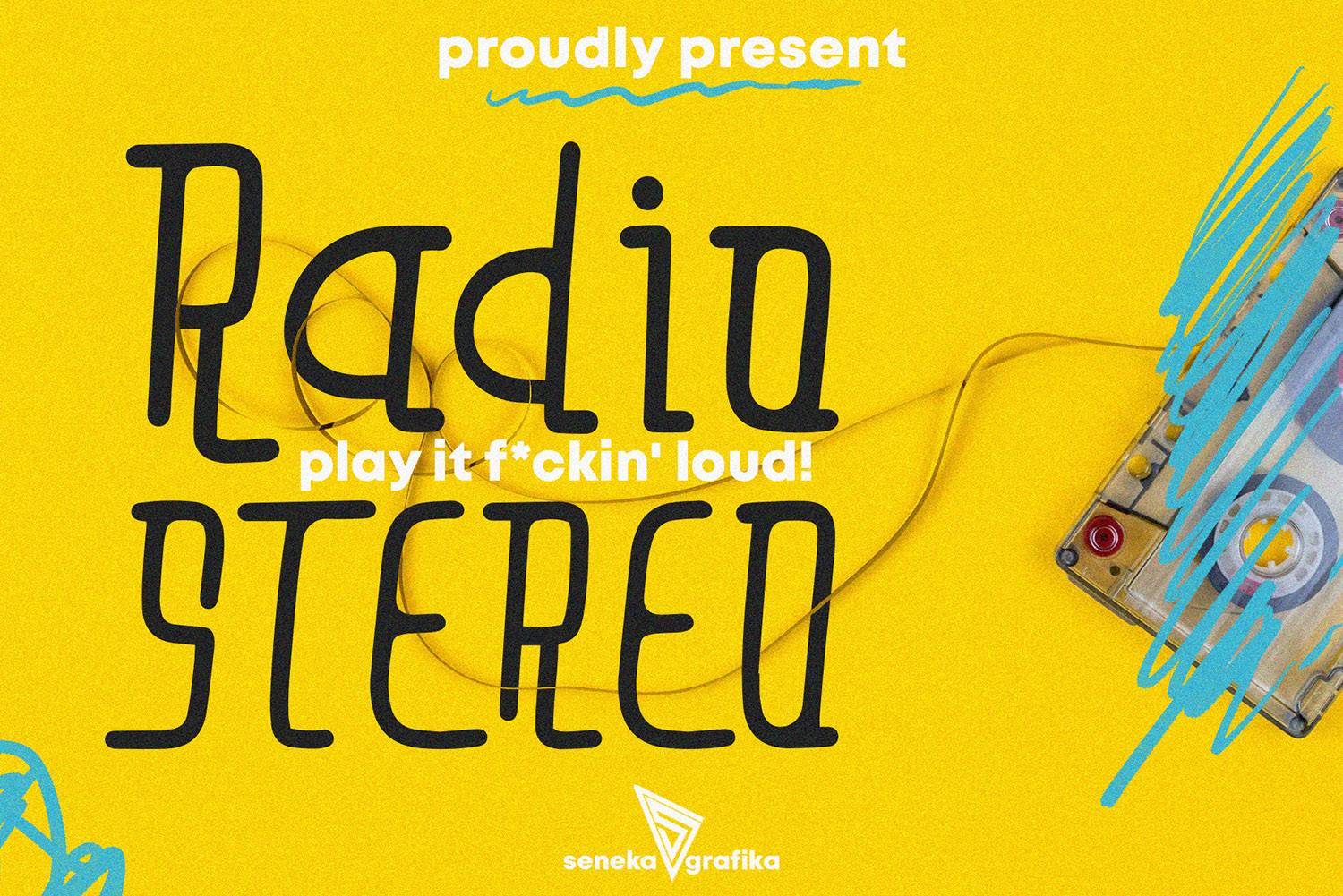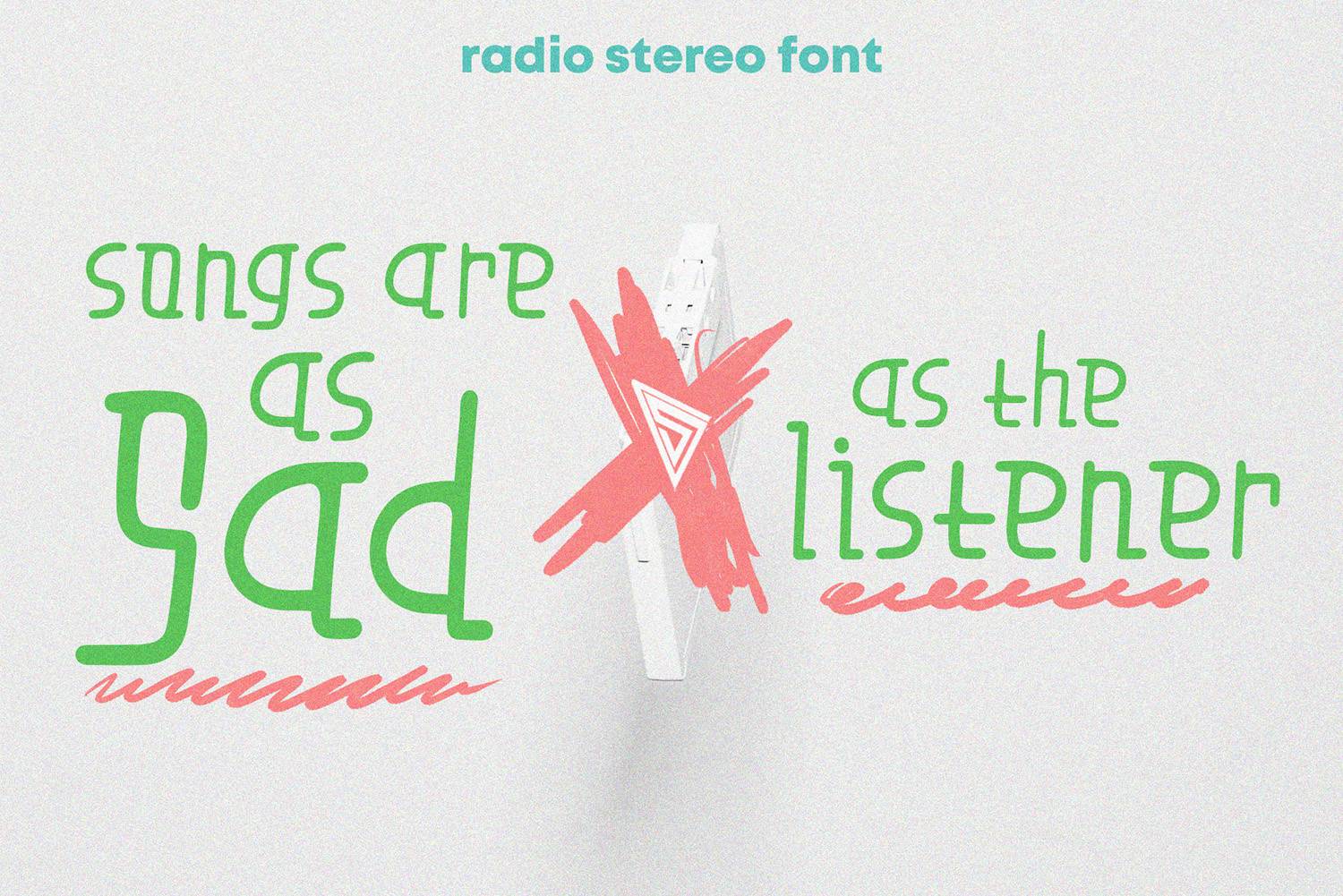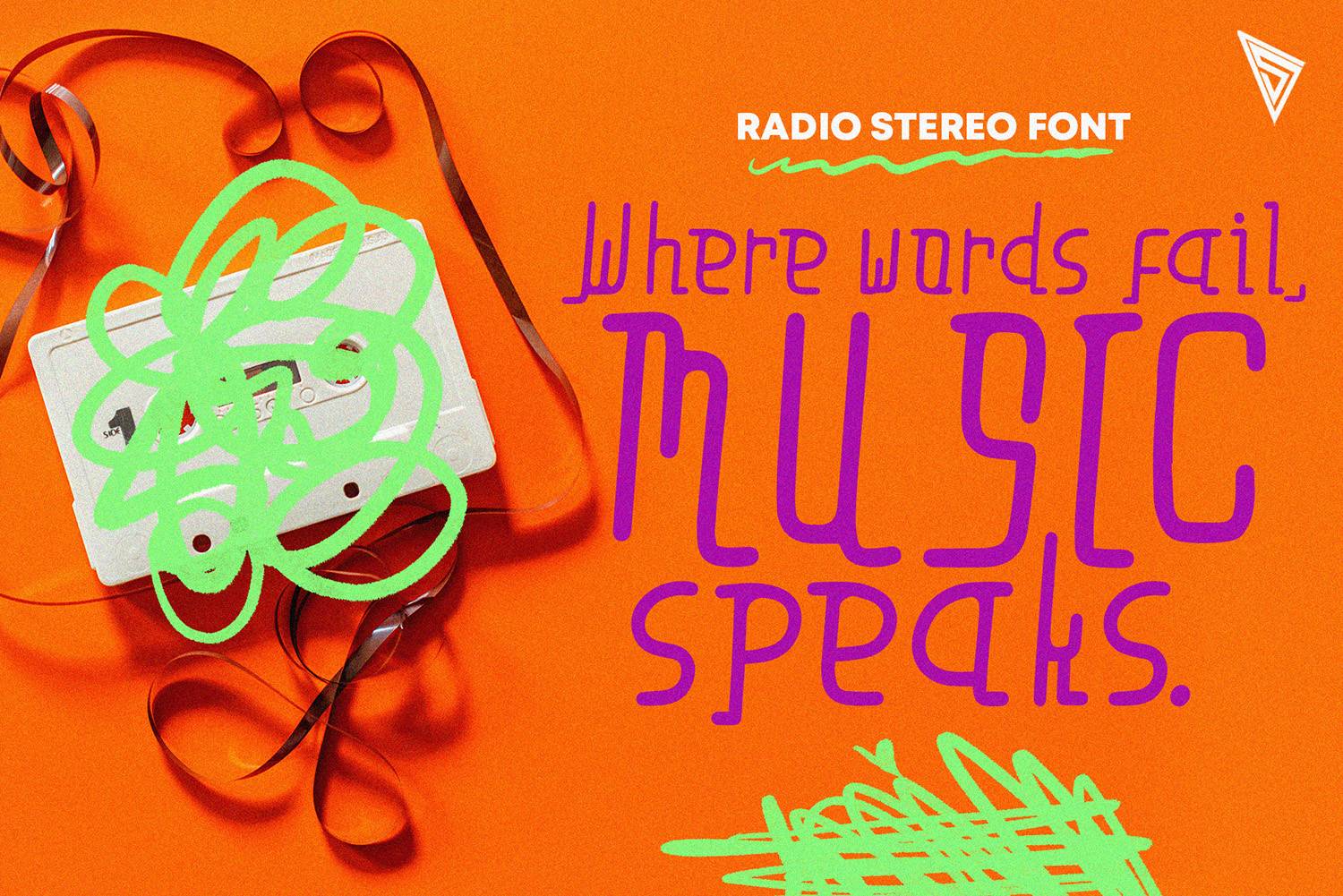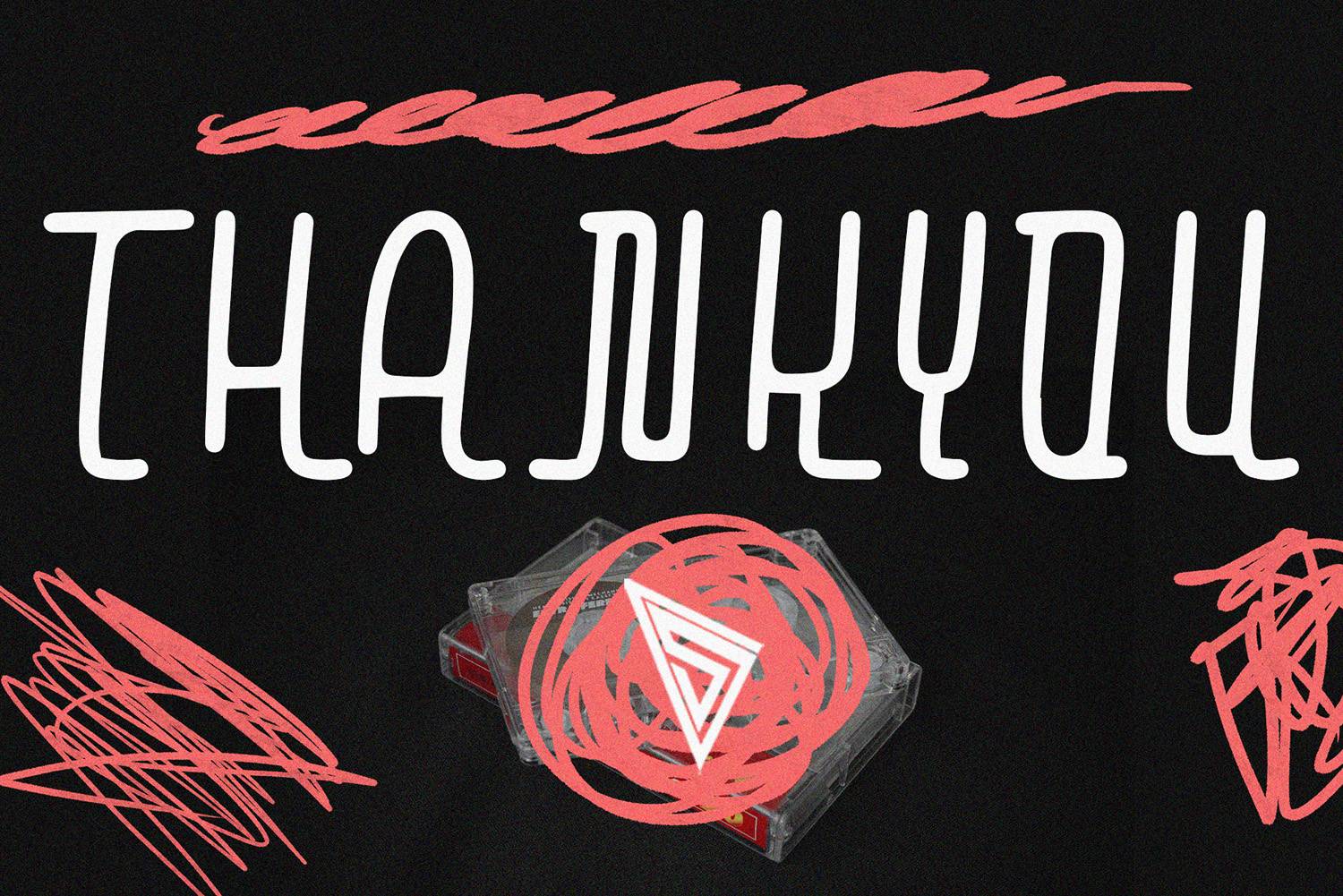
Radio Stereo is a quirky, narrow sans serif font with a playful hand-drawn feel, characterized by its tall, slightly irregular letterforms and rounded edges. Its light weight and consistent stroke width give it a friendly, approachable vibe that works well for creative and informal branding, posters, and modern editorial designs where a unique, vintage-inspired personality is desired. This font's distinctive, condensed shapes make it eye-catching for headlines and logo use, adding a touch of retro charm with contemporary freshness.
Radio Stereo Font
About Radio Stereo Font
| Font family | Radio Stereo Font |
| Designer | Muhammad Helmi |